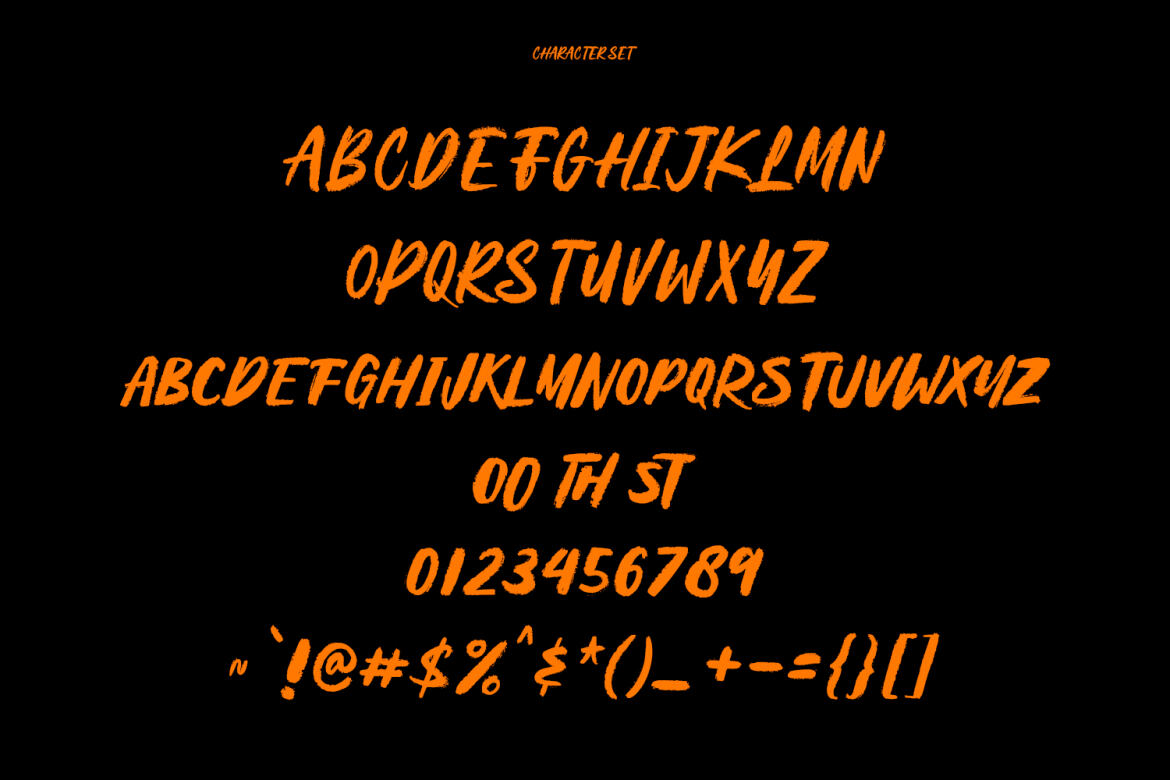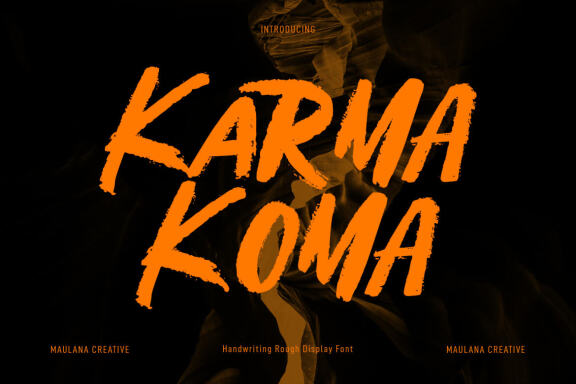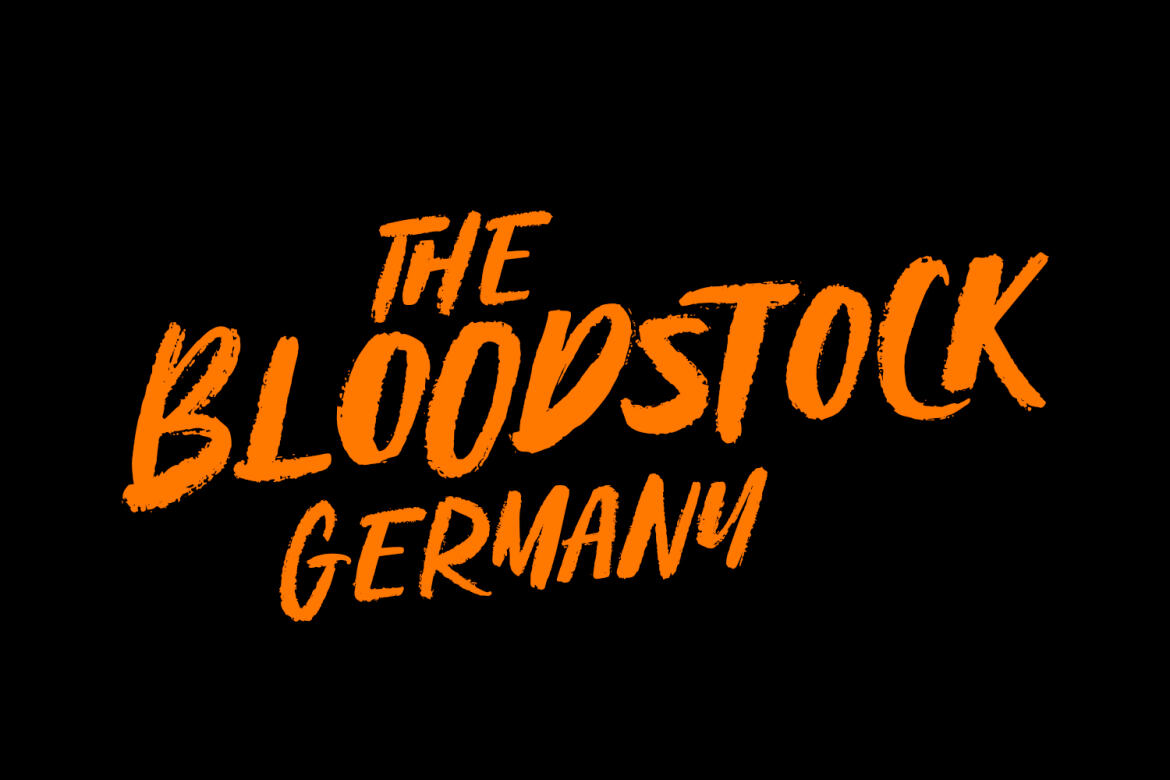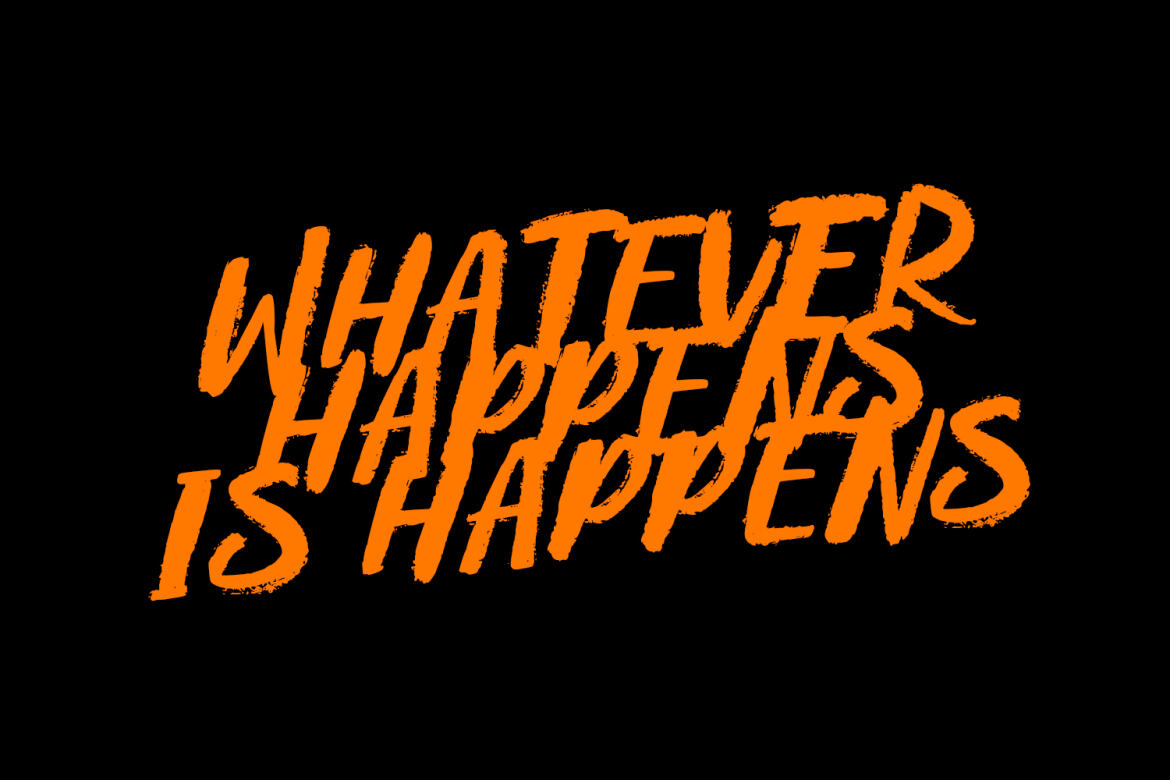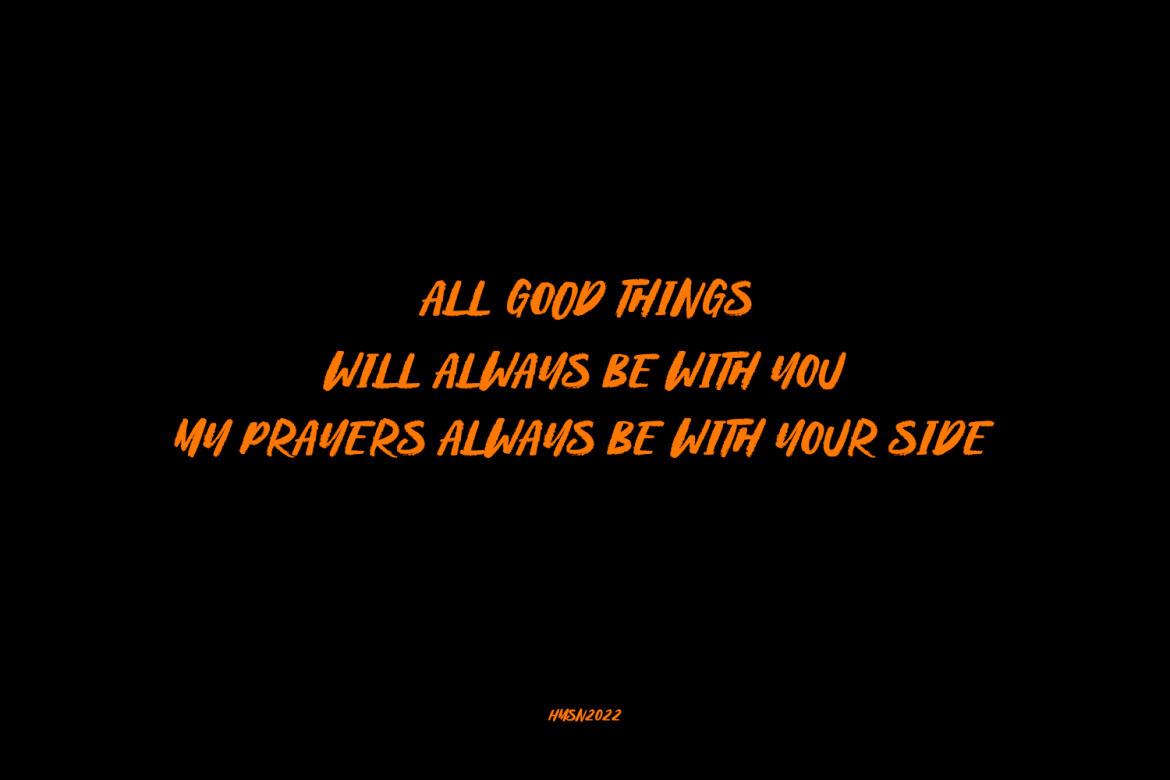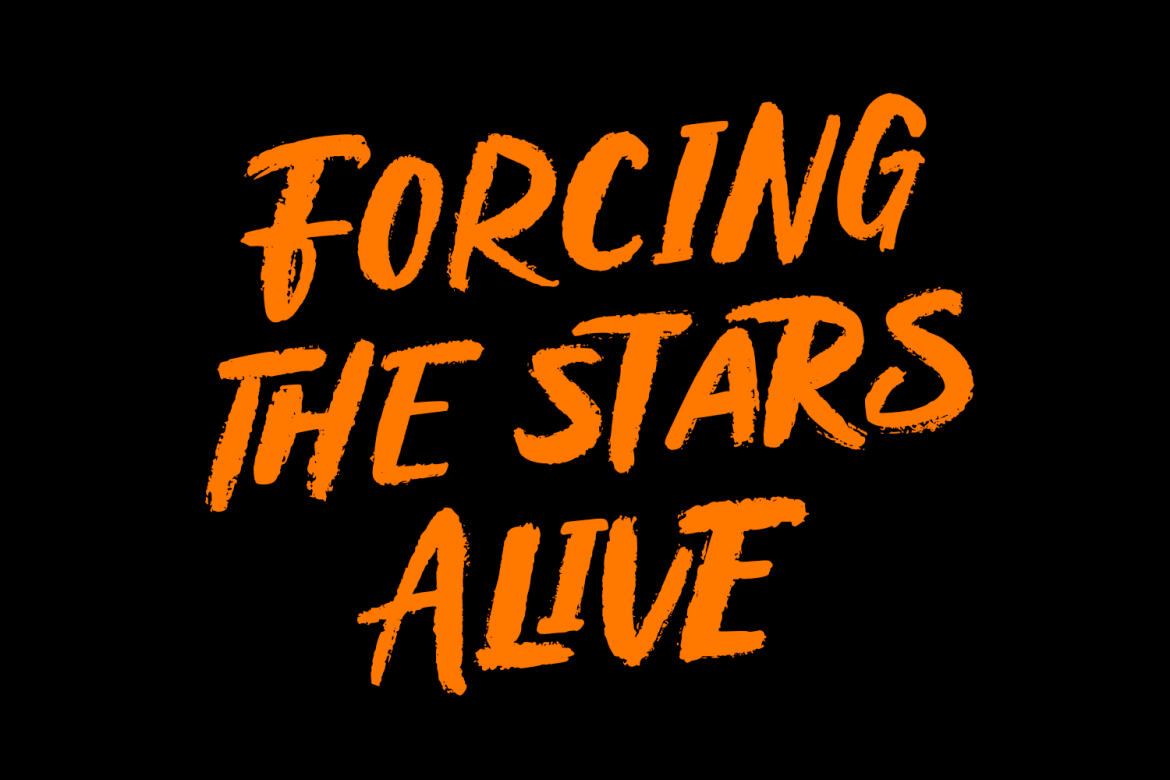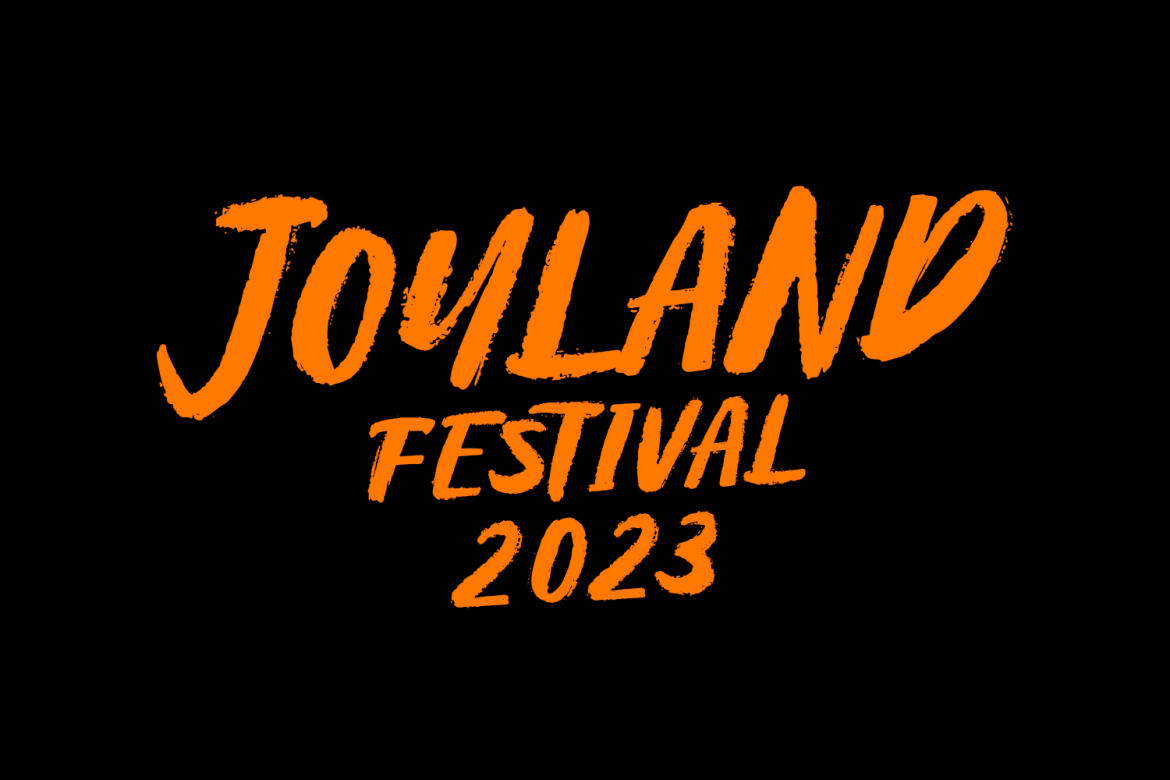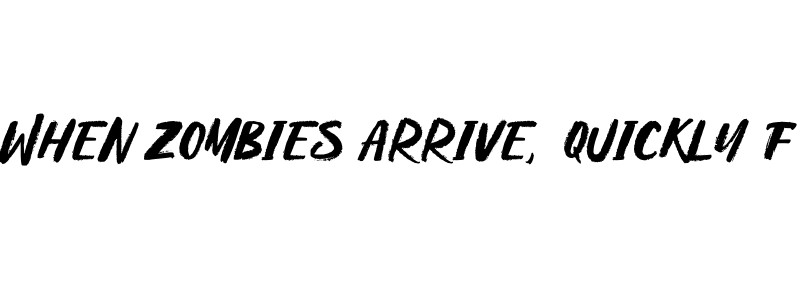
Karma Koma Handwritten FREE Font
Karma Koma
Karma Koma is a casual handwritten font. With bold brush stroke, fun character with a bit of ligatures and alternates. To give you an extra creative work. Karma Koma font support multilingual more than 100+ language. This font is good for logo design, Social media, Movie Titles, Books Titles, a short text even a long text letter and good for your secondary text font with sans or serif. Make a stunning work with Karma Koma font.